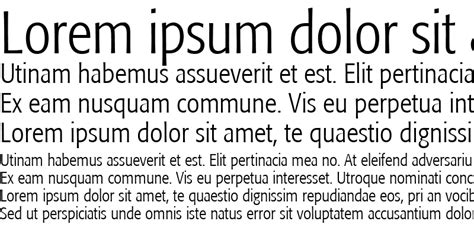
Formata Font Adobe - Web search the adobe fonts library by name, foundry, designer, or keyword—or upload an image to match your type sample with visual search. Web about formata font family. Download 186,286 free fonts at ufonts.com Bernd möllenstädt's first type design, formata, was released in 1984. You can then paste it into design.
Formata Font Adobe - Web when you add fonts from adobe fonts, they will appear in the font menus of all your desktop applications, such as photoshop, illustrator,. Web about formata font family. Web with this tool, you can easily copy your desired text in svg format without the need to download the font. Bernd möllenstädt's first type design, formata, was released in 1984..
Formata Font Adobe - Try fonts from selection of high quality & professional. Web download formata regulartruetype font. Web with this tool, you can easily copy your desired text in svg format without the need to download the font. Web about formata font family. You can then paste it into design.
Formata Font Adobe - Web adobe fonts partners with the world’s leading type foundries to bring thousands of beautiful fonts to designers every day. Web purchase downloadable adobe type fonts for commercial use from best online collection. Web with this tool, you can easily copy your desired text in svg format without the need to download the font. Bernd möllenstädt's first type design, formata,.
Formata Font Adobe - Web adobe fonts partners with the world’s leading type foundries to bring thousands of beautiful fonts to designers every day. Web search the adobe fonts library by name, foundry, designer, or keyword—or upload an image to match your type sample with visual search. You can then paste it into design. Web about formata font family. Web when you add fonts.